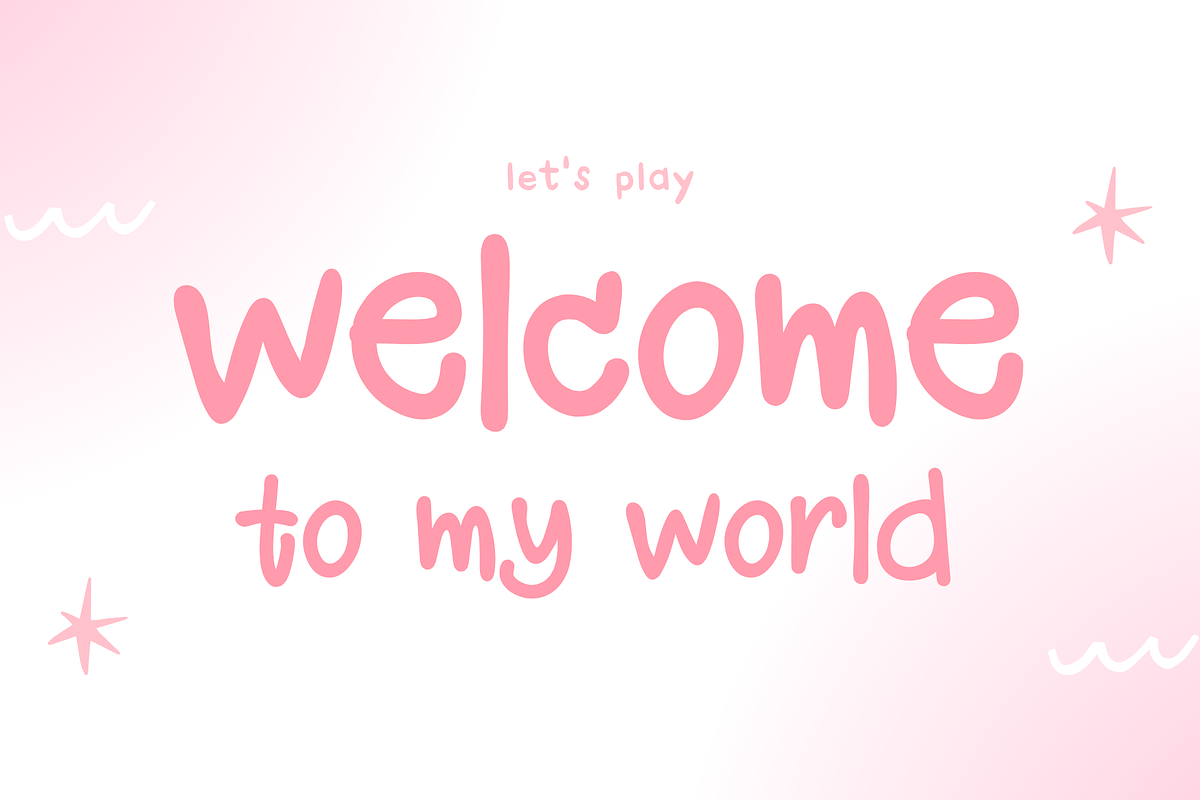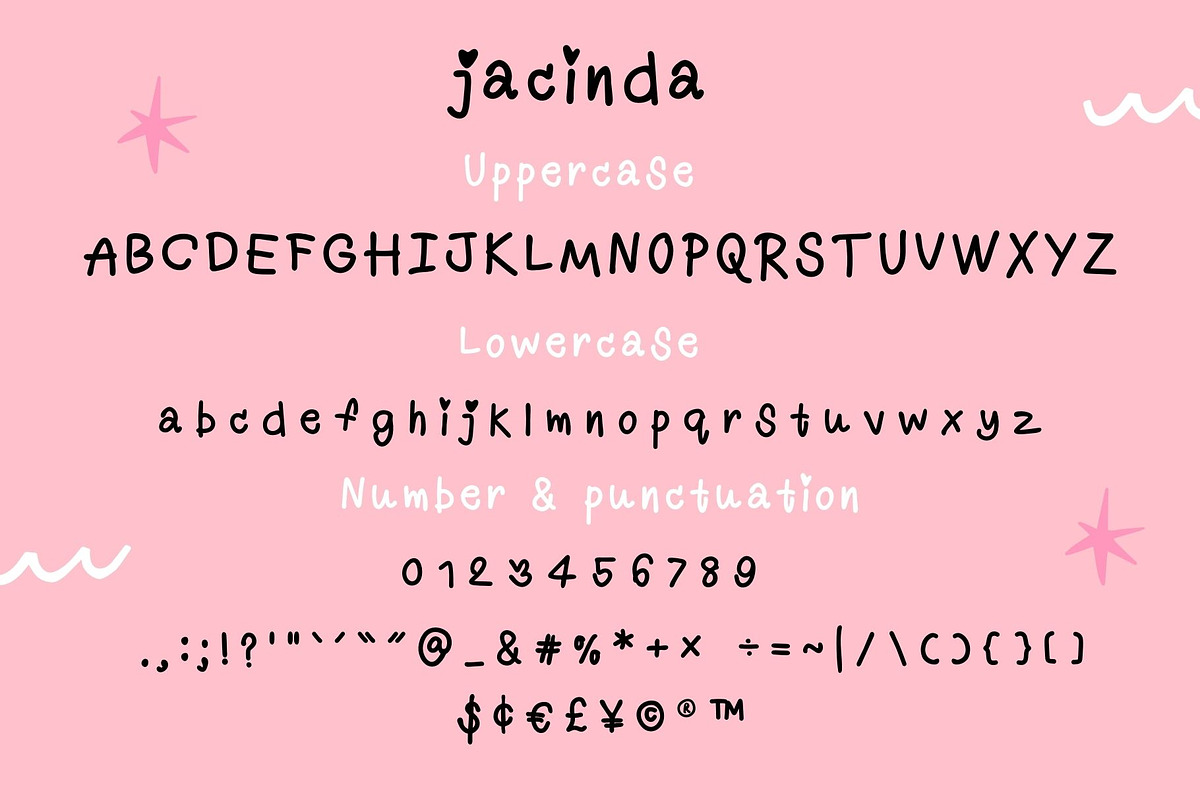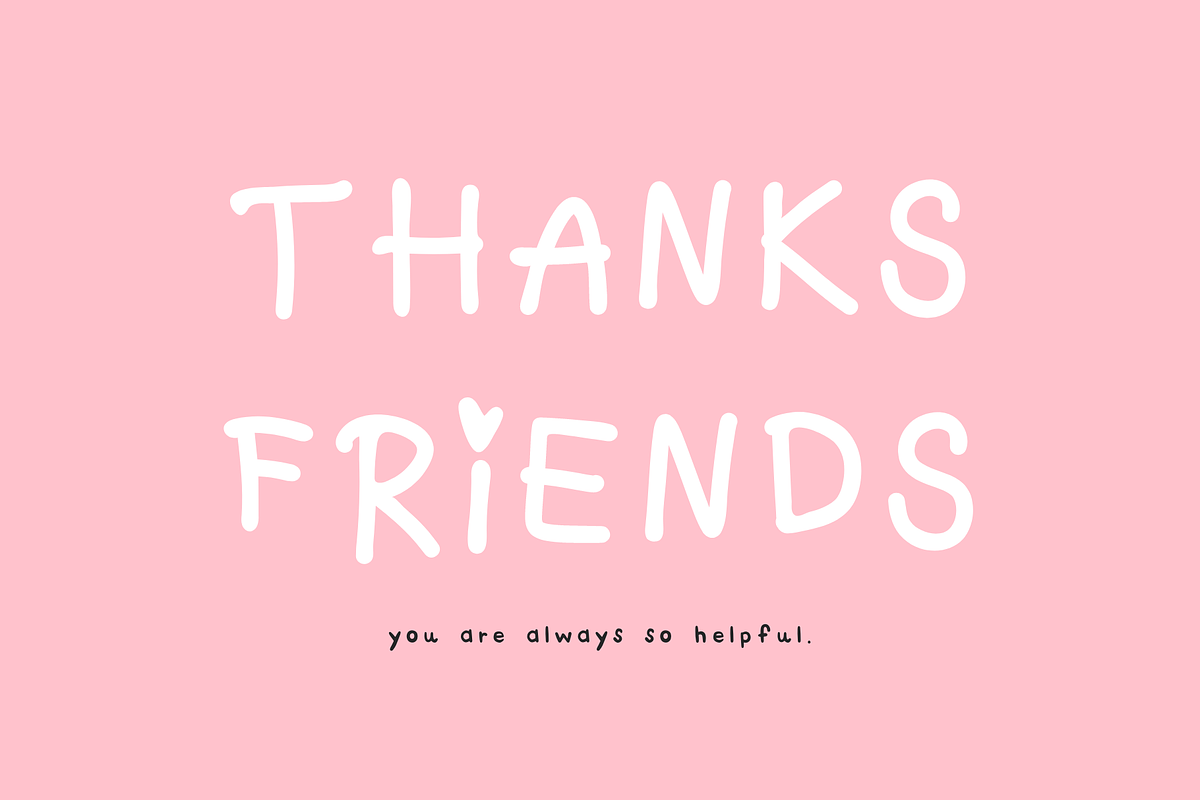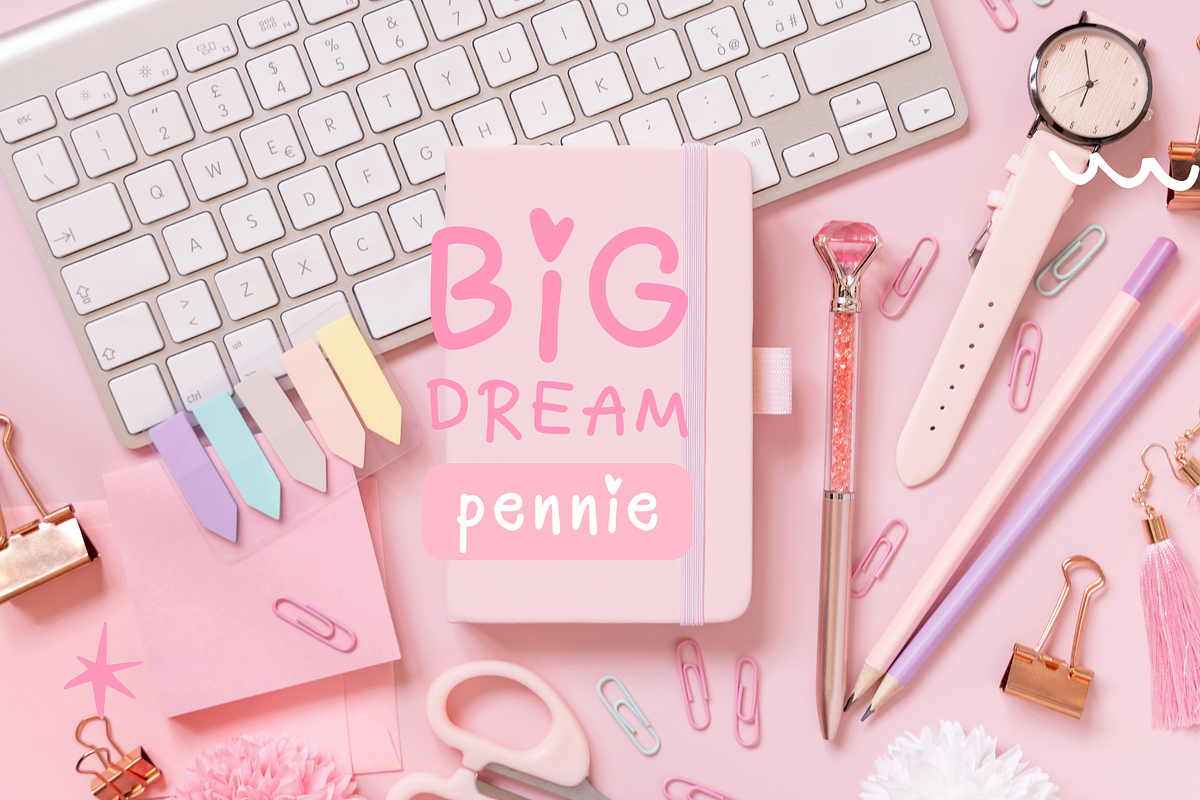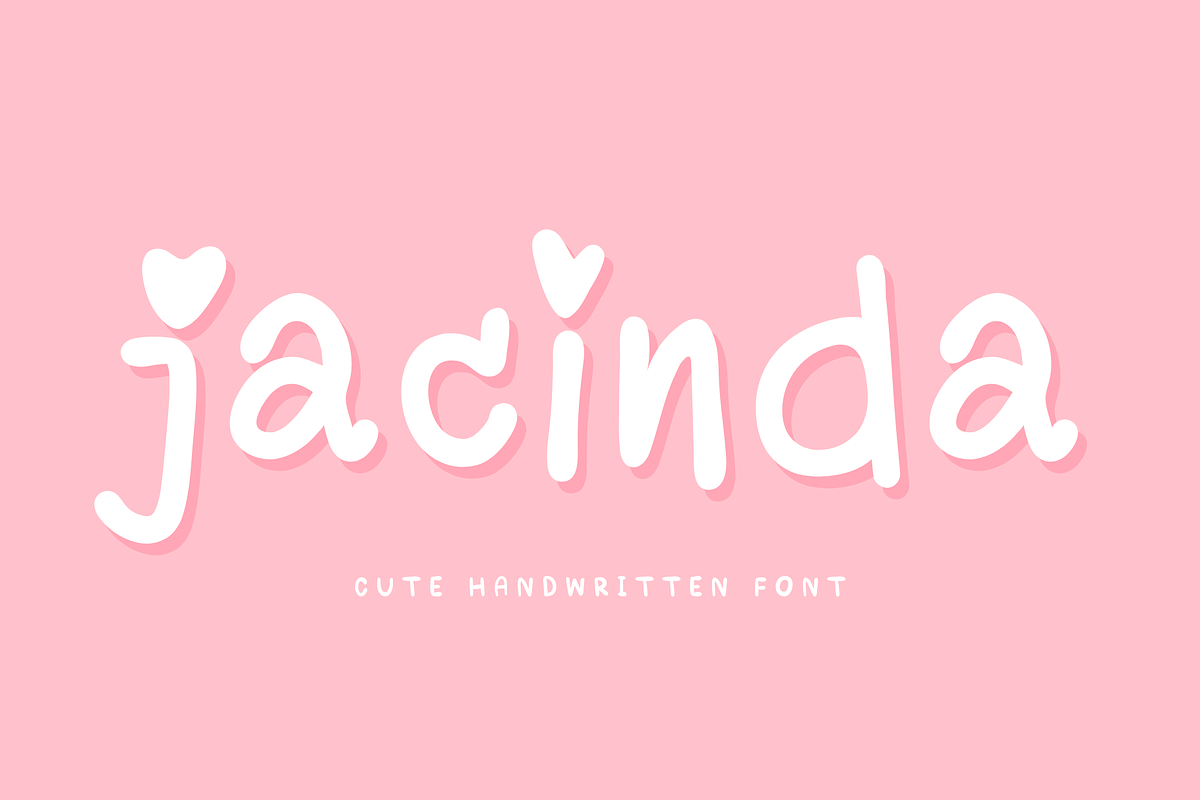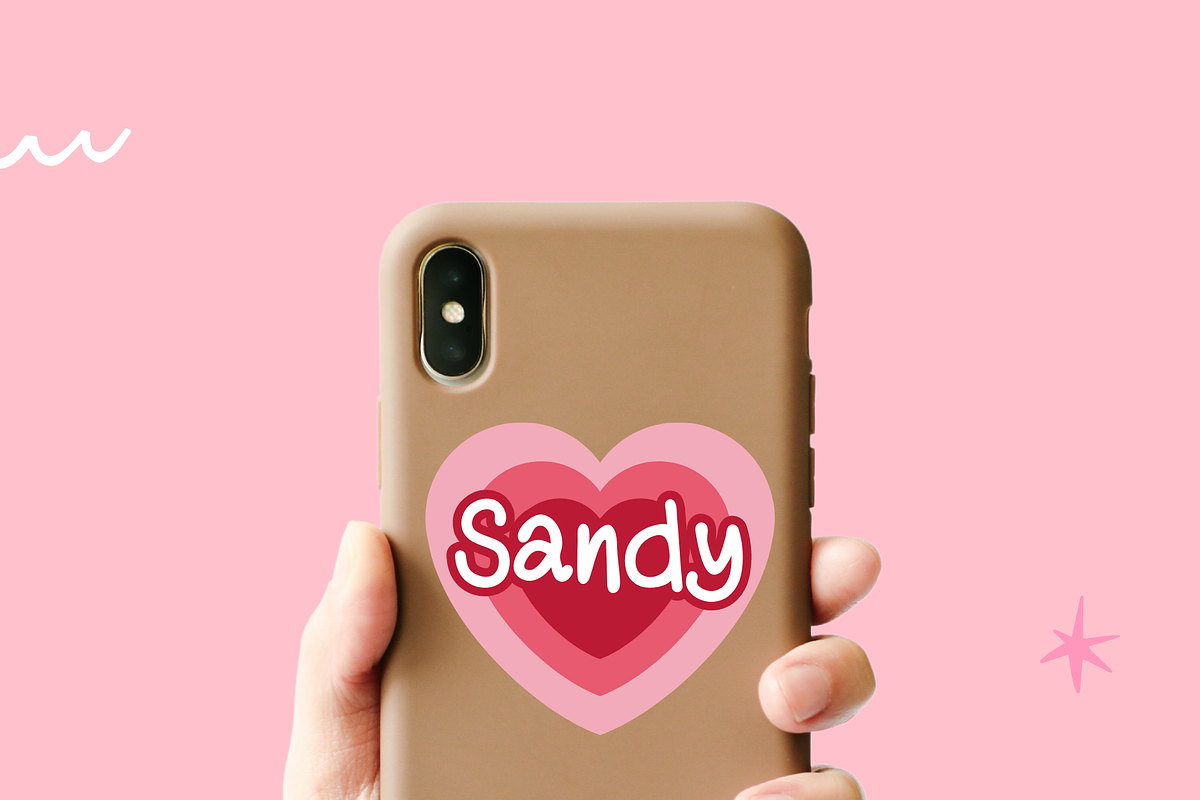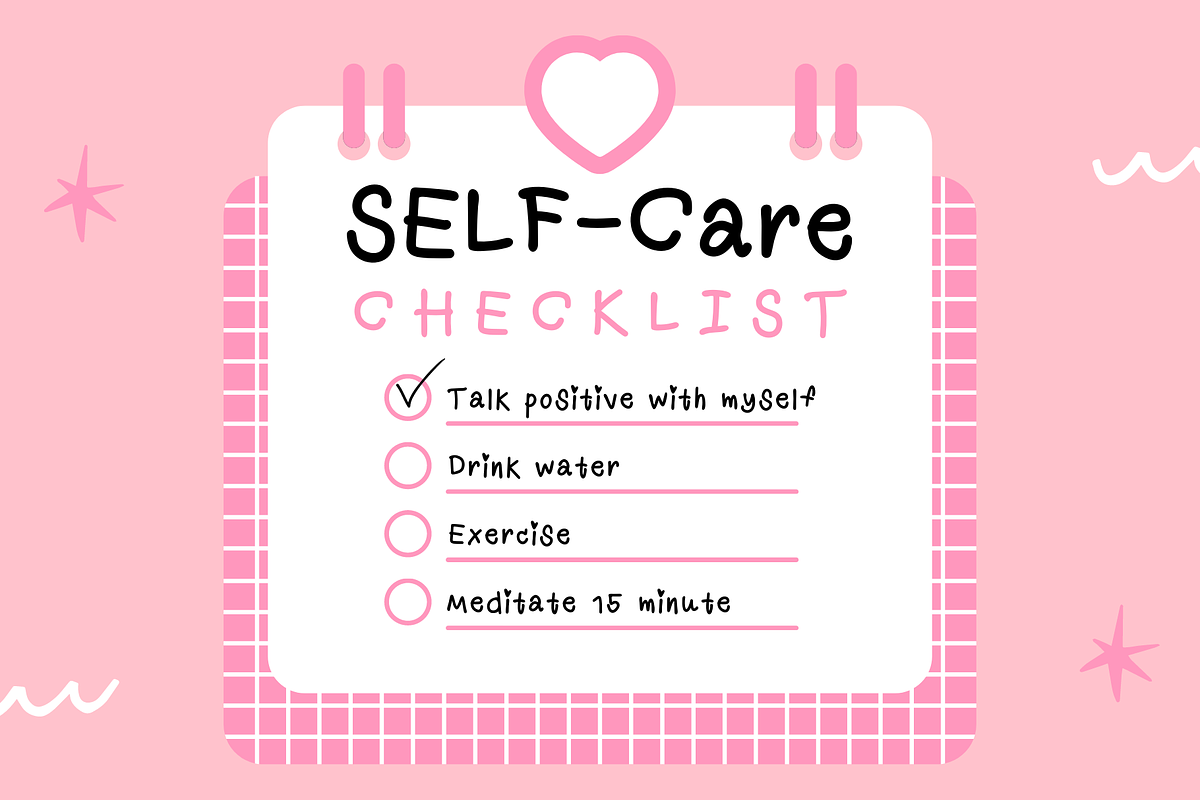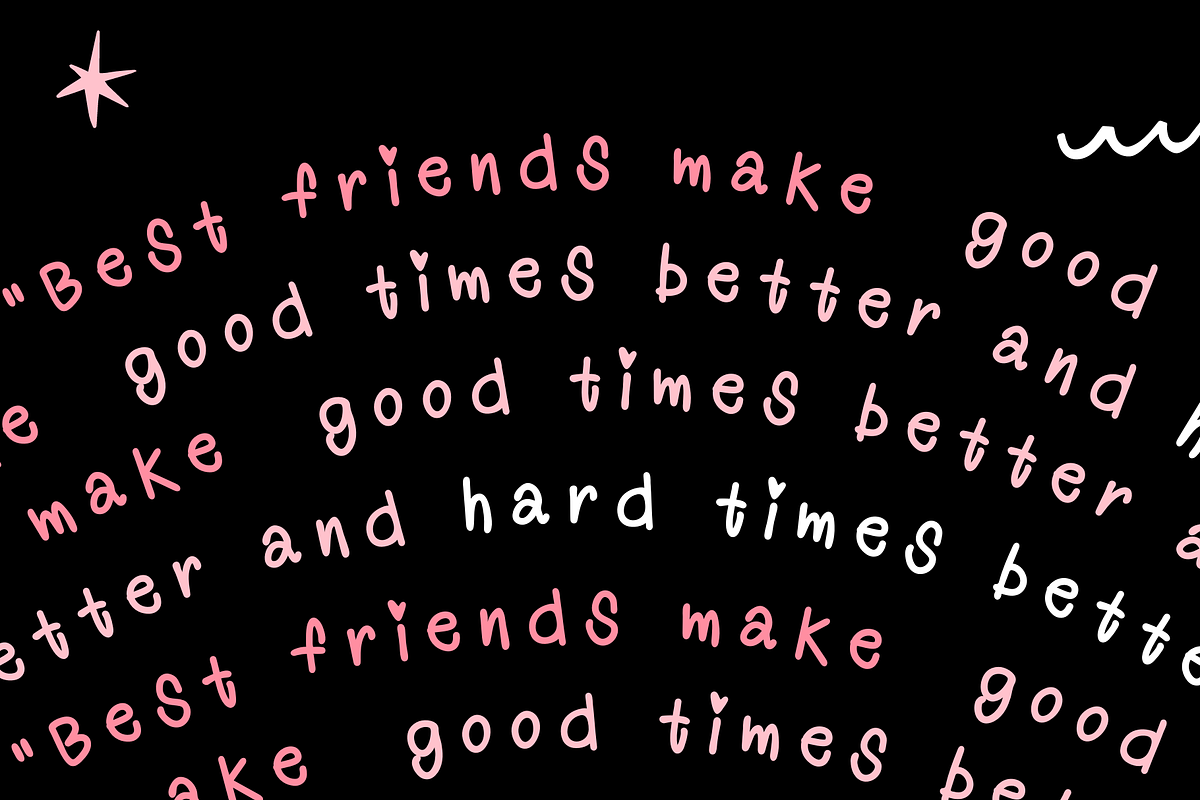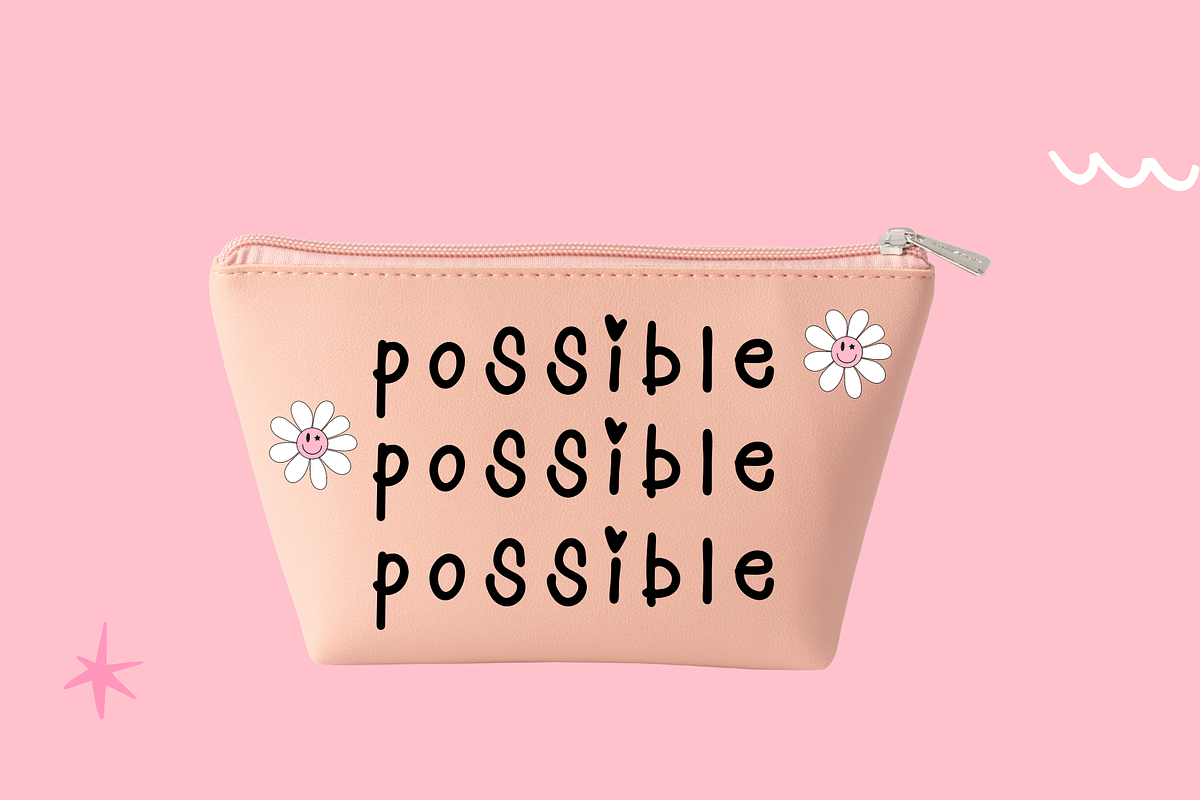
Jacinda - Cute Handwriting Font
Jacinda is a cute handwriting font that showcases lovely irregularities, mimicking the fluidity of handwriting. Its slightly rounded shape gives it a soft and gentle appearance, making it feel comfortable and accessible. The font exudes playfulness and warmth, evoking a sense of innocence and childlike joy. Therefore, it is perfectly suitable for projects that require a touch of cuteness and friendliness.